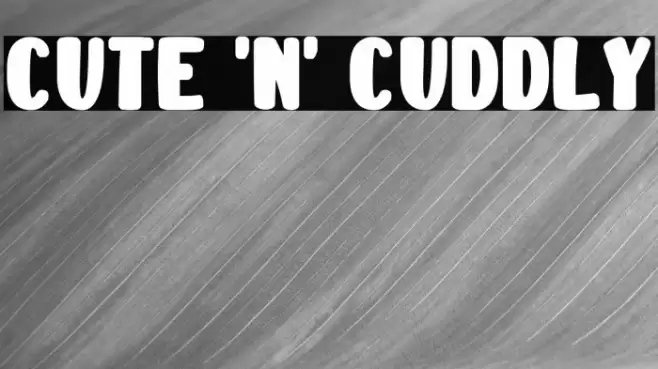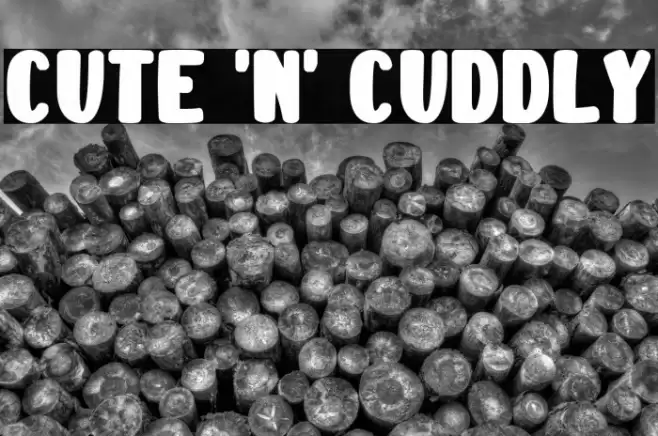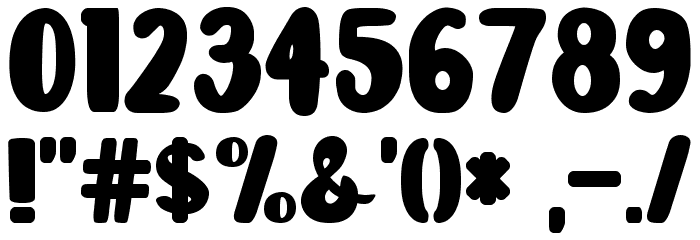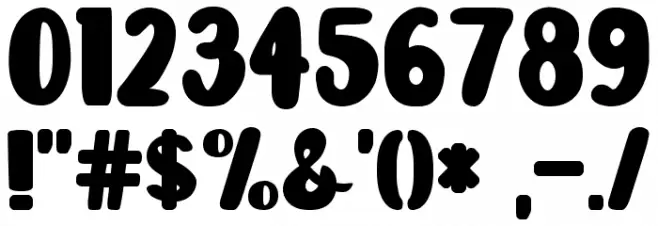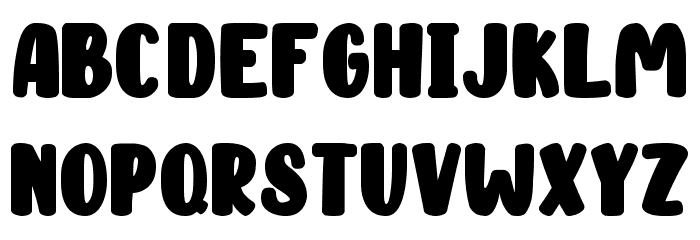
Cute 'n' Cuddly Font
Cute 'n' Cuddly Description
This playful and bold font features rounded edges and a bubbly appearance, giving it a friendly and approachable feel. The characters are thick and uniform, with a consistent stroke width that adds to its charm. The uppercase and lowercase letters maintain a cohesive style, while the numbers and special characters blend seamlessly into the overall design. Its whimsical nature makes it perfect for projects that require a touch of fun and creativity.
A playful, bold font with rounded edges and a bubbly appearance from Regular fonts.
- Proposed Projects: Ideal for children's books, playful branding, party invitations, and merchandise designs.
- Overall Style: Playful